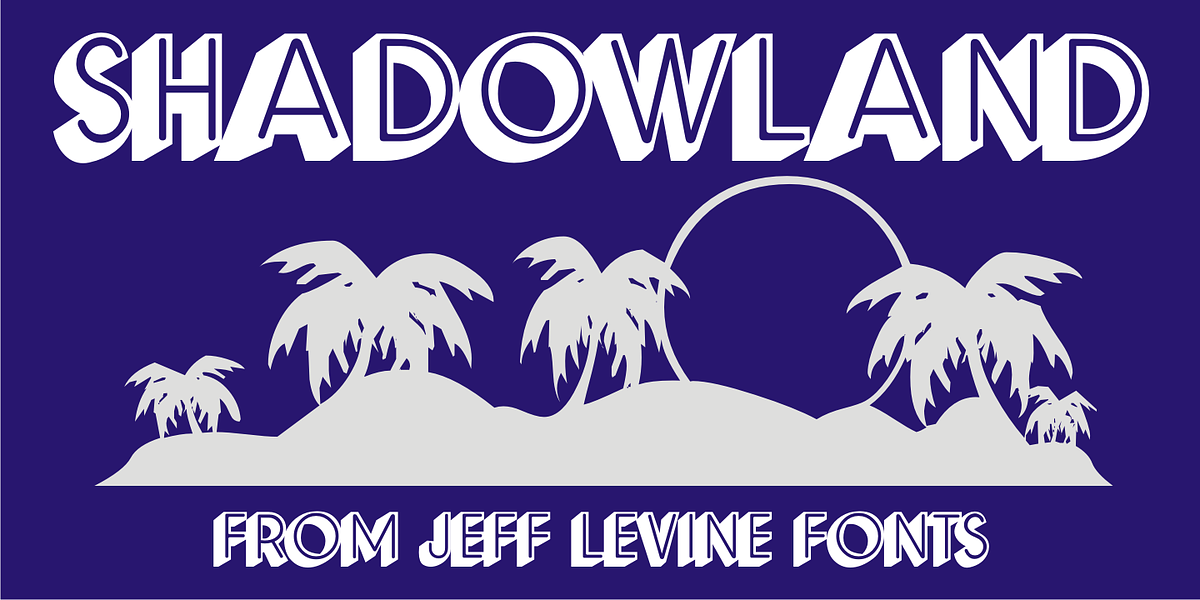
Shadowland JNL
Shadowland JNL is a simple titling font with a limited character set. Comprised of just A-Z with basic punctuation, the design is based on a set of wood type of a more modern era. The outer lines are crisp and sharp, while the interior letters have rounded ends.